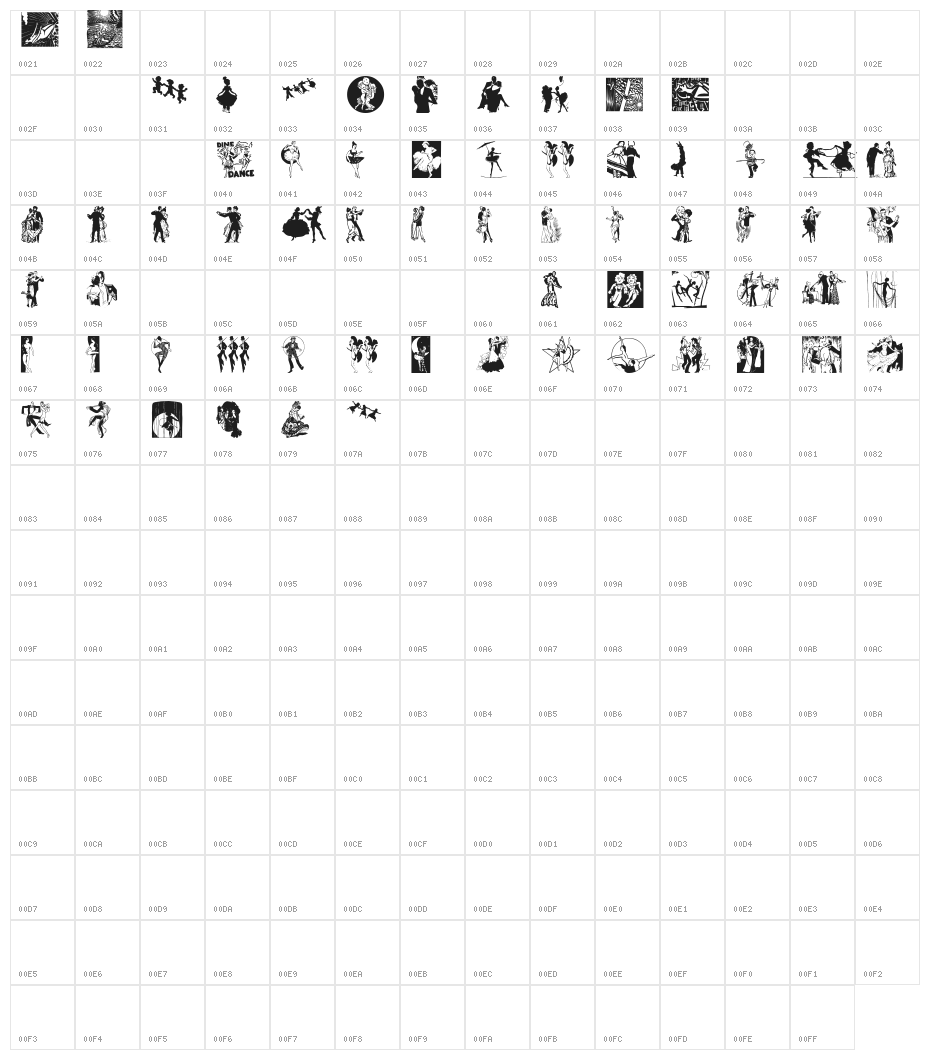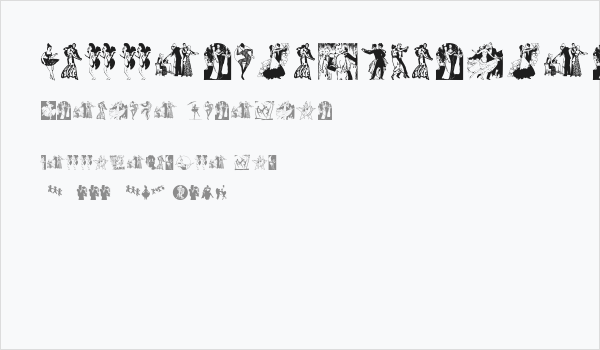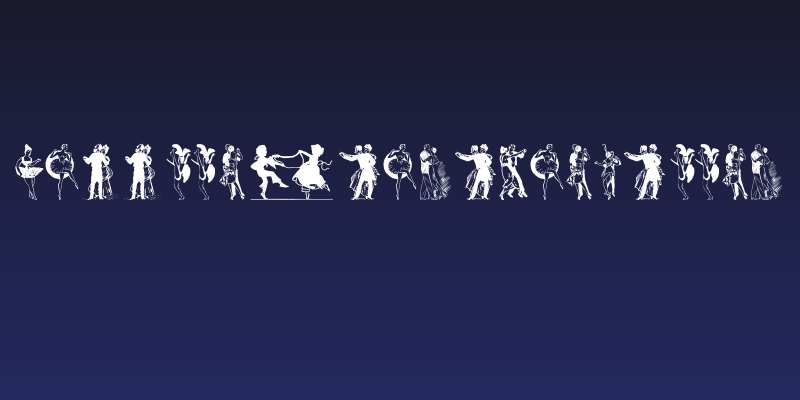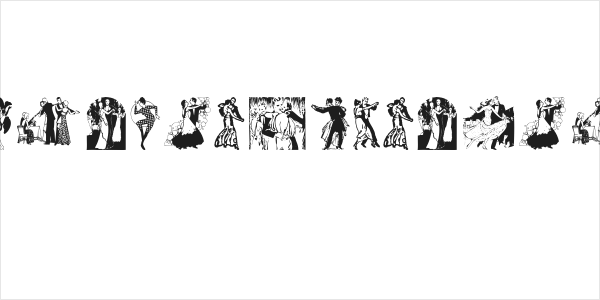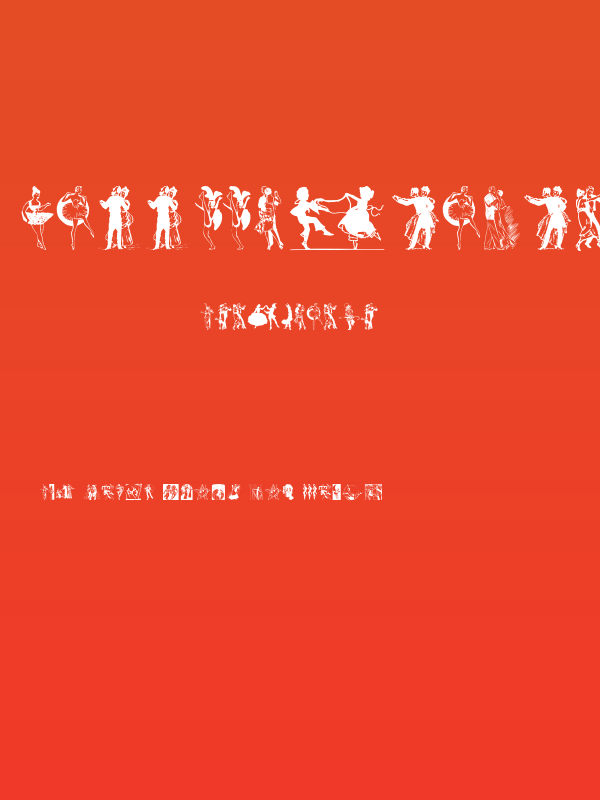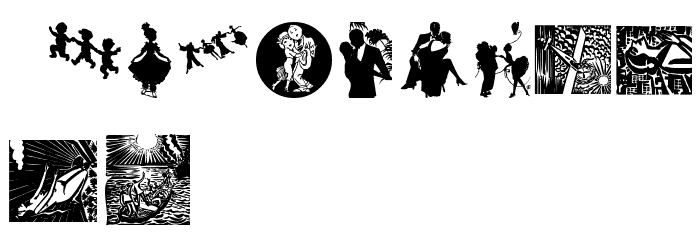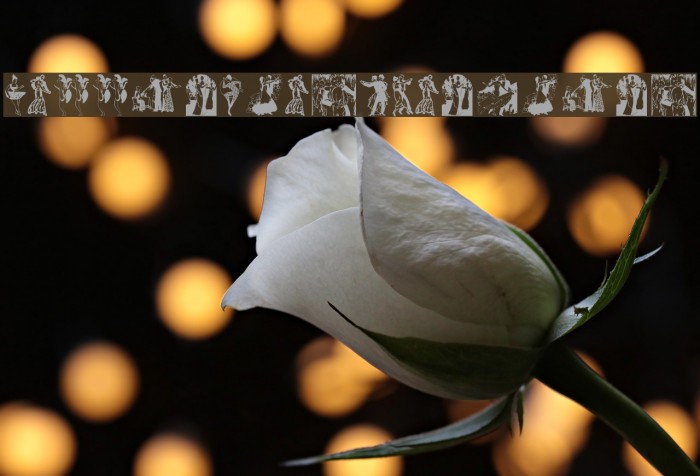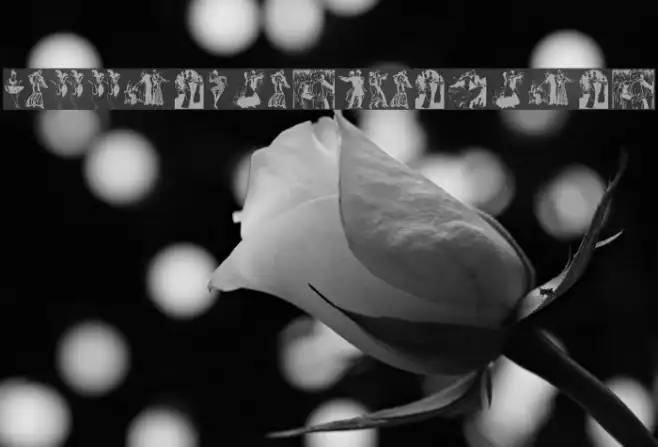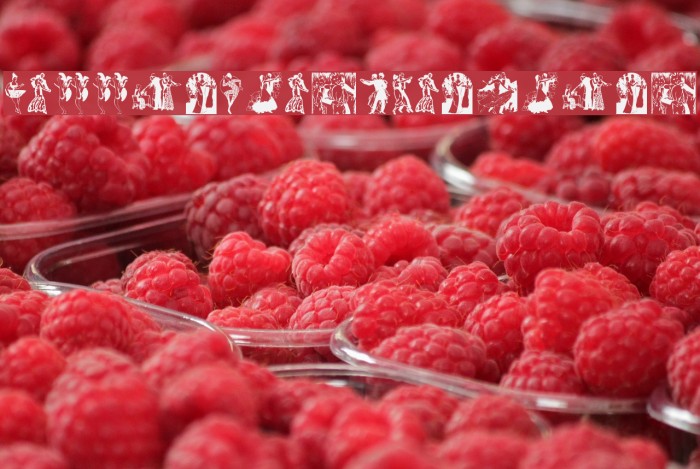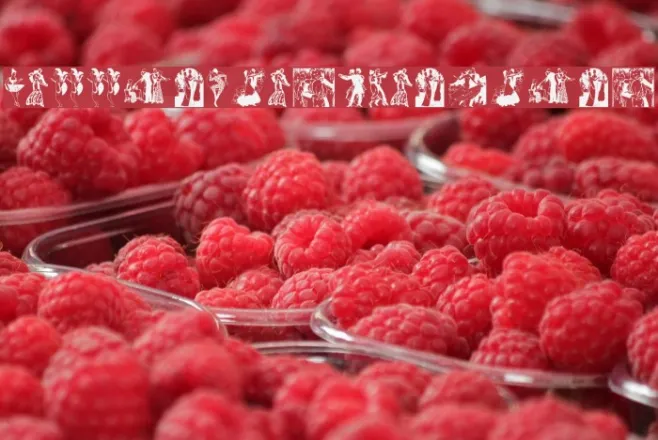
BallerinasNPartners Font
BallerinasNPartners Description
A decorative display font featuring detailed black and white illustrations of dancers, ballerinas, and dance partners in various poses and styles. Each character is represented by a unique, expressive scene, blending Art Deco and vintage aesthetics with high contrast and intricate line work.
| Overall Style | Vintage, Decorative, Art Deco |
| Use Case | Headlines, Posters, Logos, Invitations |
| Proposed Projects | Event posters, dance studio branding, invitations, themed party materials, theatrical programs, art projects. |